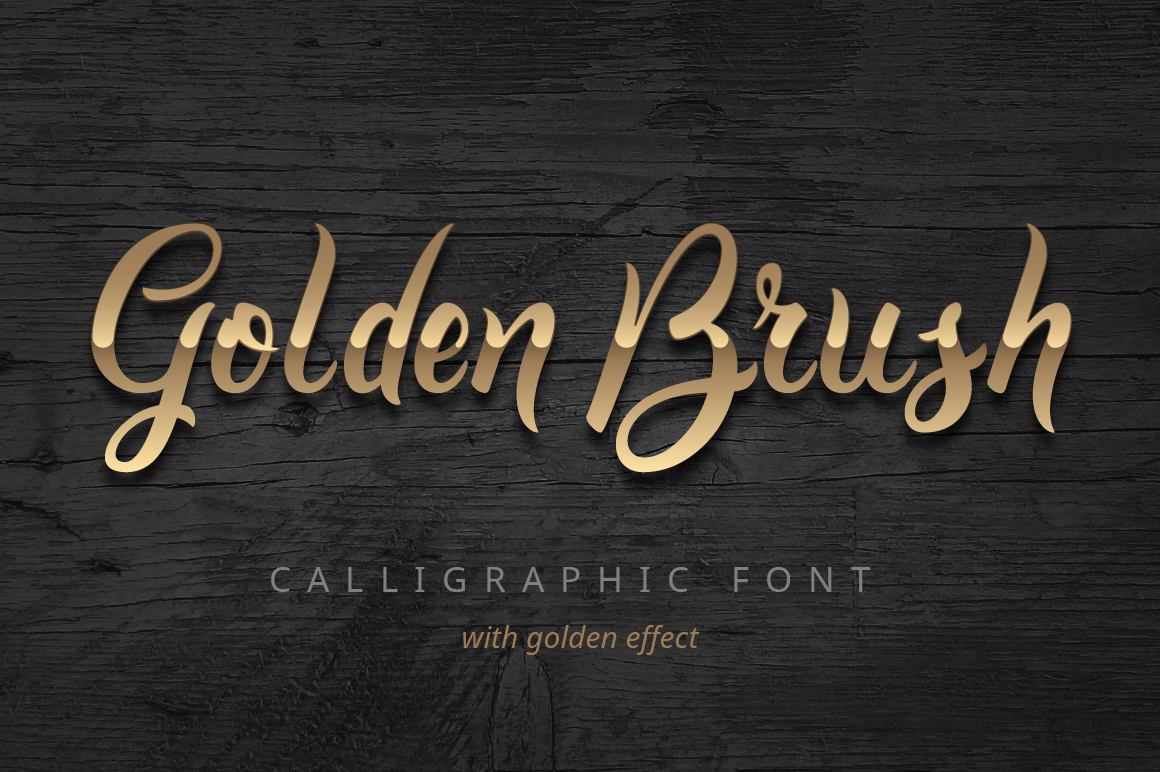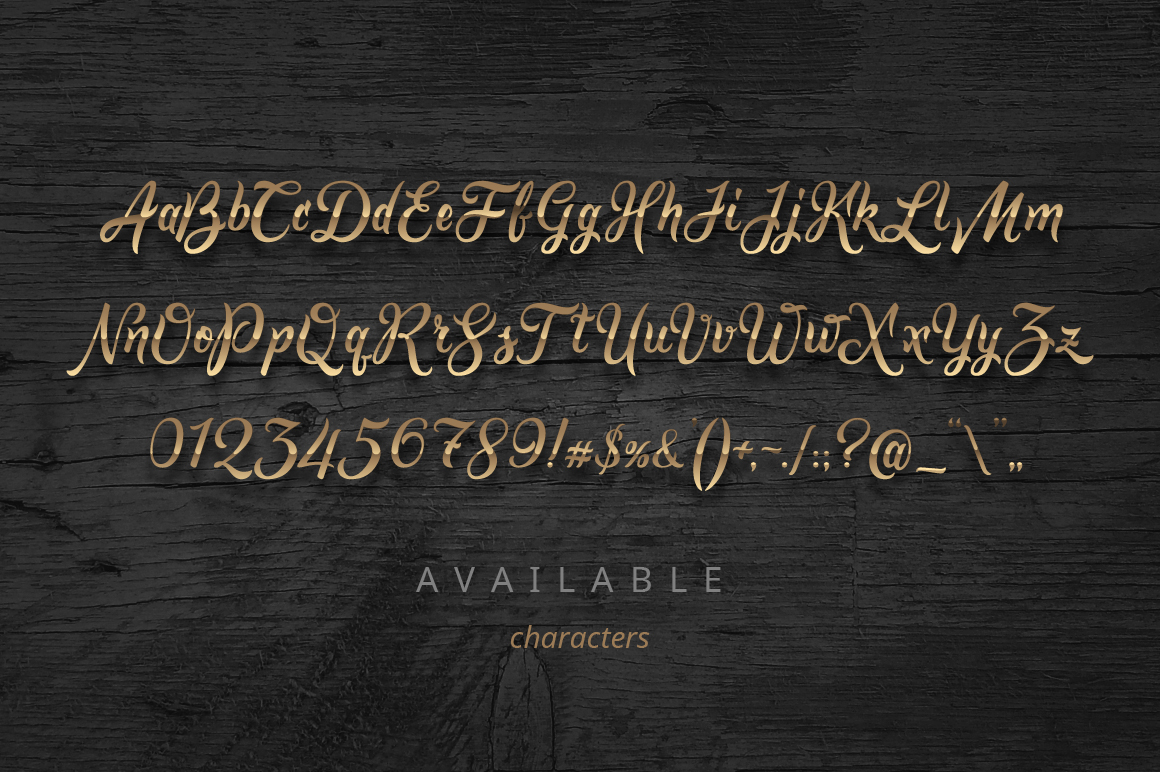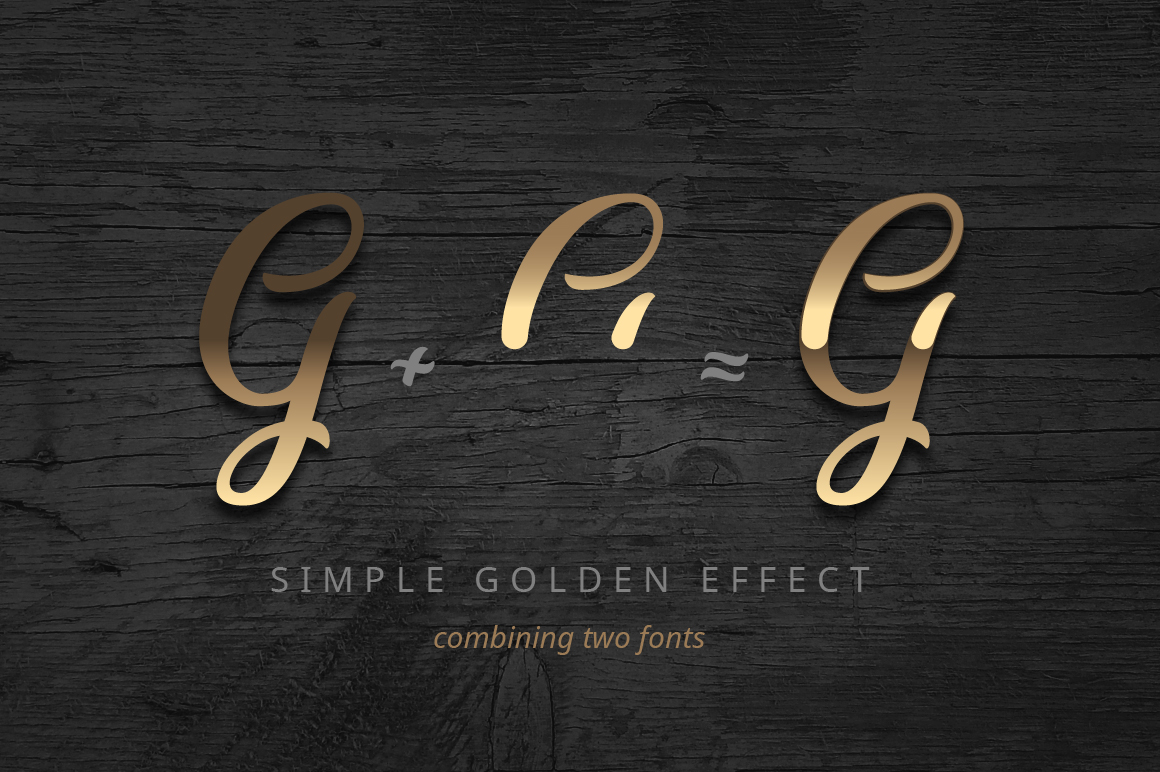
Golden Brush Font
About Golden Brush Font
Golden Brush is a handmade calligraphy font.
You will receive a beautiful pair of fonts that when combined create a unique highlight look and feel. You can layer the 2 fonts on top of each-other and give one of the fonts a different color to create the different color effect. The Highlights font contains only the top half of each letter which allows you to very easily achieve this shiny text effect.